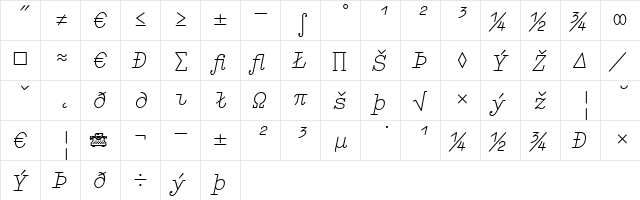
Elementa Expert ItalicMedium
| Foundry | Mindaugas Strockis, . Published by FontShop International. FontFont Release |
Design Context for Elementa Expert Typeface
Elementa Expert is a composed and adaptable typeface that performs quietly and consistently across a wide range of design contexts. The slanted form adds forward momentum and visual energy.